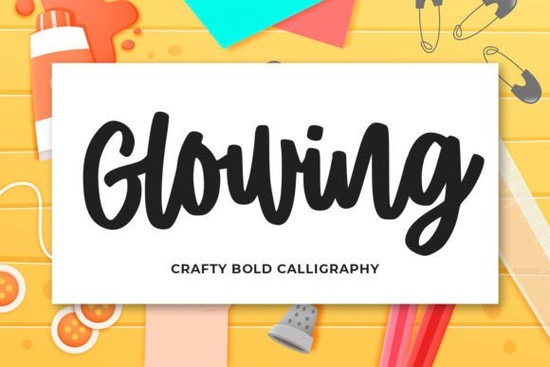
If you're looking for a handwriting font that feels both natural and modern, Glowing Font is a great choice. It gives your projects a clean, personal touch without looking too stiff or digital. Whether you are a designer working on branding, a print-on-demand seller making t-shirts, or a hobbyist creating cards, this font adapts well. Let's look at how you can put it to use and what makes it stand out.
How can I use Glowing Font in my projects?
Glowing Font works across many design areas because it stays readable while keeping a handwritten feel. Here are some common ways creatives use it:
- Branding and logos – The natural flow makes brand names feel approachable.
- Quotes and social media graphics – It adds personality without overwhelming the message.
- T-shirt and tote bag designs – The smooth letters work well on fabric and merchandise.
- Cards and banners – Perfect for wedding invitations, thank-you notes, or sale banners.
If you work with other script styles, you might also like a monoline boho font for a simpler, uniform look. Pairing Glowing Font with a clean sans-serif title can create nice contrast.
What makes Glowing Font different from other handwriting fonts?
Many handwriting fonts try to imitate handwriting but end up looking repetitive. Glowing Font avoids that by keeping letters natural and slightly varied. Each character has a smooth, modern curve that still feels human. It is not too decorative, so it works for both short headlines and longer text. If you need a more playful alternative, check out the playful bunny font – that one has a bouncier, cartoon-like style. For a vintage twist, the Milestone font gives a different, more classic handwritten vibe.
Can beginners use Glowing Font easily?
Yes. Because it is a clean script font, you do not need advanced skills to make it look good. It works straight out of the box in tools like Canva, Photoshop, or Illustrator. For those learning lettering or teaching kids, the ABCD Cursive Handwriting Tracing Bundle is a practical companion – it helps you practice proper stroke order and spacing.
Is Glowing Font suitable for print-on-demand?
Print-on-demand sellers often need fonts that scale well and stay legible at different sizes. Glowing Font holds up well on mugs, hoodies, and phone cases. The moderate stroke width means it won't break in thin lines on fabric. For baby or children's products, the Sweet Baby font offers a softer, rounder style that many parents prefer, but Glowing Font gives a more universal, grown-up look if your designs target a broader audience.
How do I pair Glowing Font with other elements?
Think about contrast. Since Glowing Font is a flowing script, pair it with a clean, all-caps sans-serif for titles or a simple serif for body text. Keep backgrounds uncluttered – a solid pastel or simple gradient lets the hand-lettered effect shine. For social media, use white text over warm-toned photos to keep the modern feel.
Practical checklist for using Glowing Font
- Test the font at small sizes (e.g., 14–18 pt) to confirm readability.
- Try it on a mockup (tote bag, T-shirt, or greeting card) before finalizing.
- If you layer text, add a subtle drop shadow or outline to keep the script legible.
- Combine with one of the related fonts mentioned above for promo bundles or combo packs.